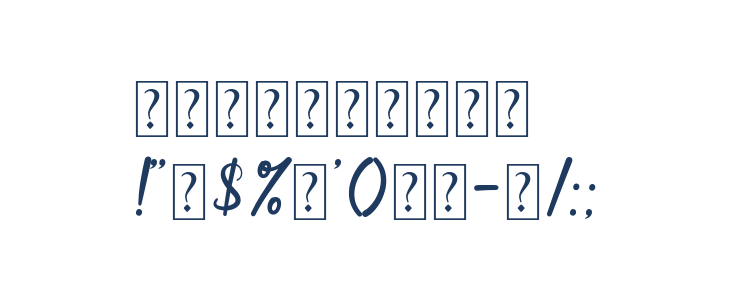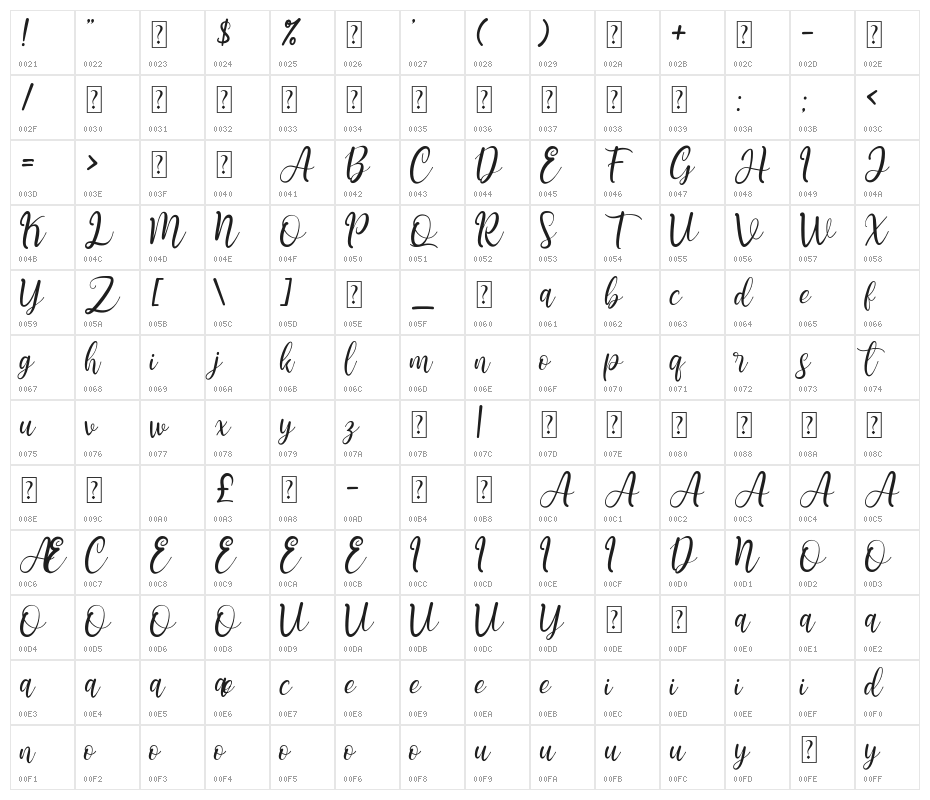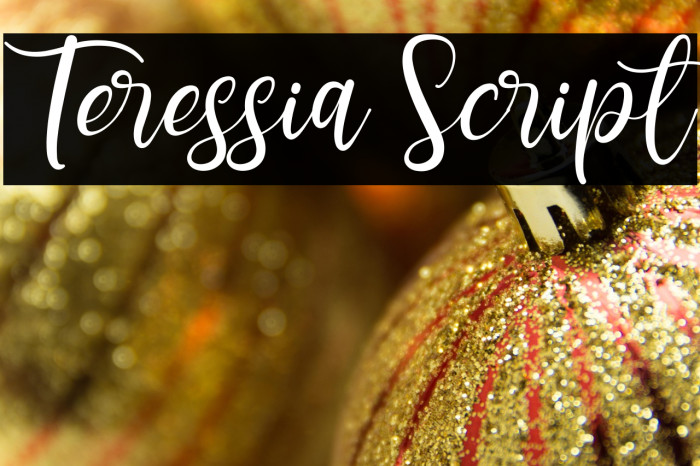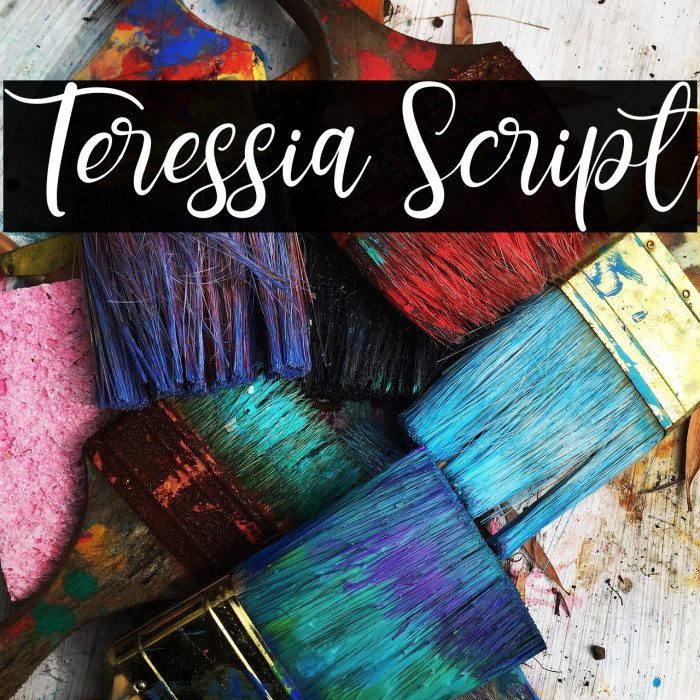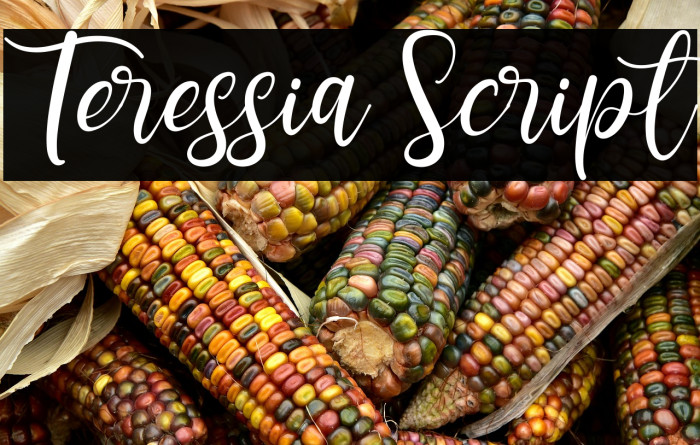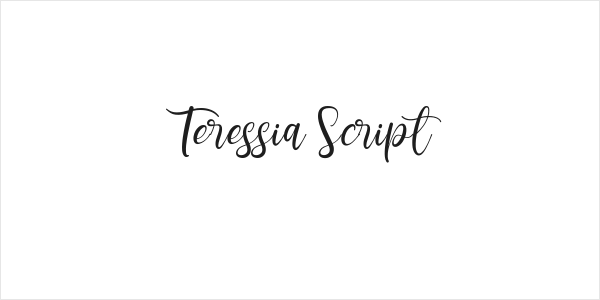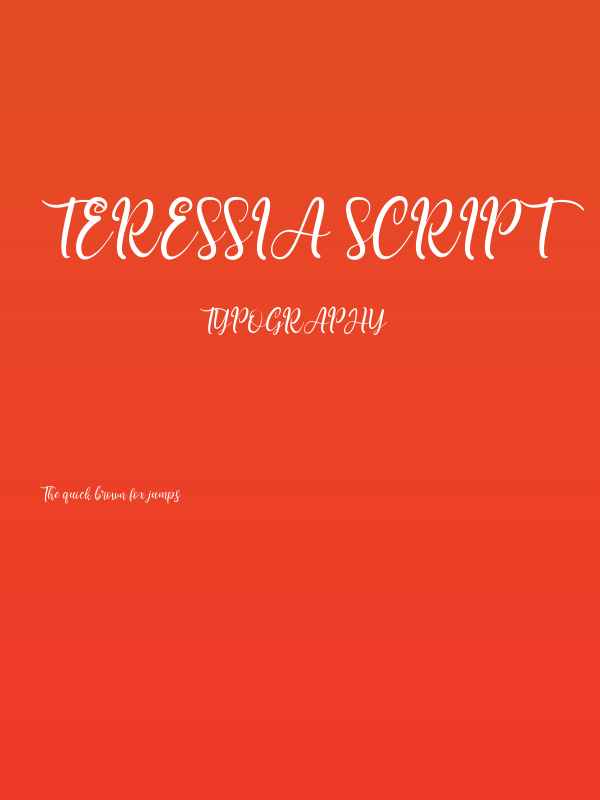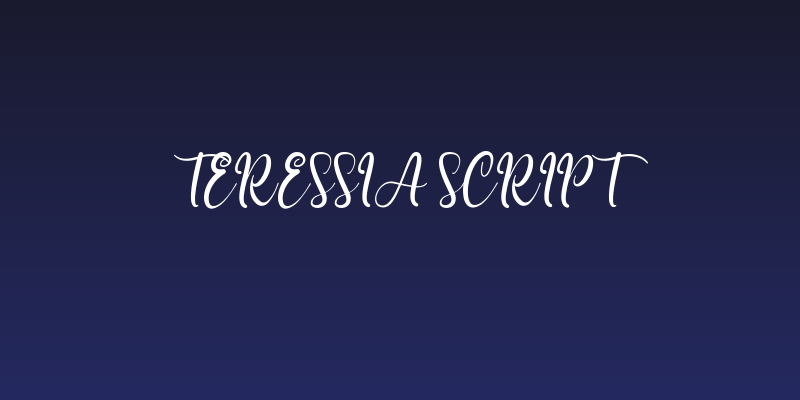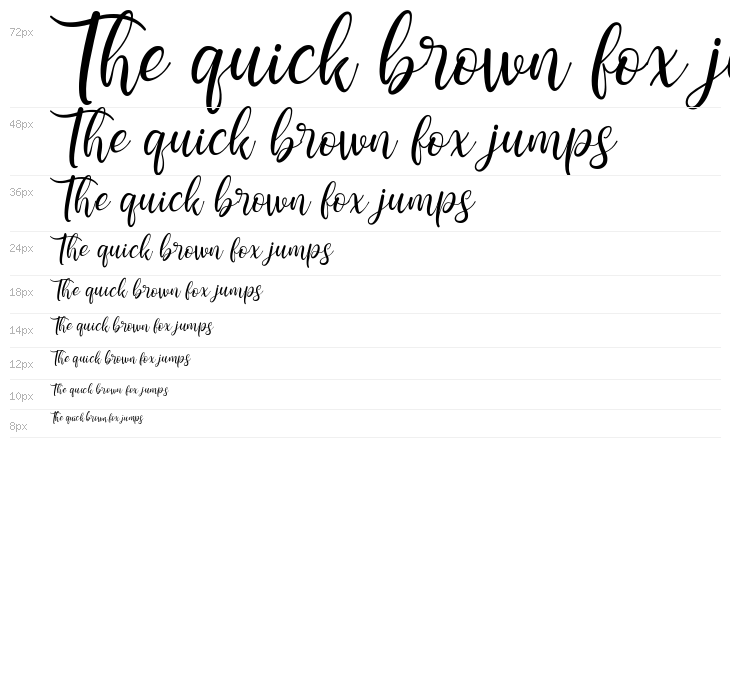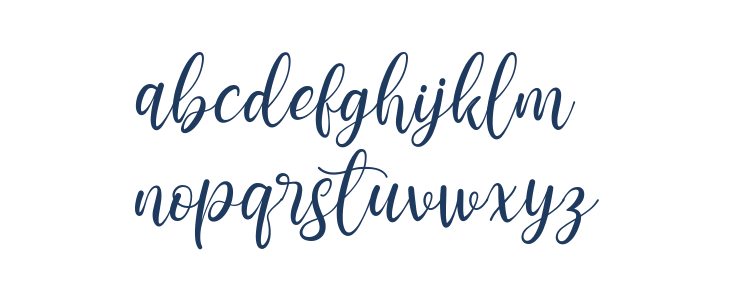
Teressia Script Font
Teressia Script Description
This elegant script font features a flowing, cursive style with smooth, connected strokes. The uppercase letters are characterized by their graceful loops and flourishes, adding a touch of sophistication and charm. The lowercase letters maintain a consistent flow, with gentle curves and a slightly slanted orientation, enhancing the overall fluidity. The numerals and special characters are crafted with the same attention to detail, ensuring a cohesive appearance across all glyphs. This font exudes a sense of elegance and refinement, making it ideal for formal invitations, branding, and decorative purposes.
| Overall Style | Elegant |
| Use Case | Headlines, Invitations, Branding |
| Proposed Projects | Ideal for wedding invitations, elegant branding, greeting cards, and decorative signage. |